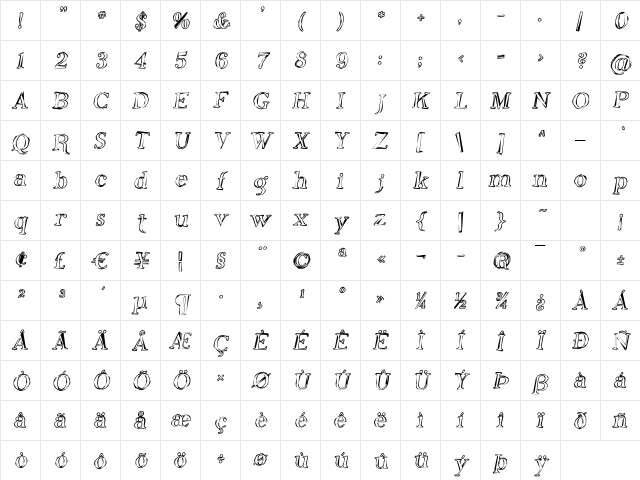
Phosphorus Oxide Regular Free Font
Phosphorus Oxide Regular
Designer: Derek Vogelpohl
Design Context for Phosphorus Oxide
Phosphorus Oxide is a composed and adaptable typeface that performs quietly and consistently across a wide range of design contexts.
Pro Tip: Use Phosphorus Oxide in both headline and body roles to test its range before committing to a single application.